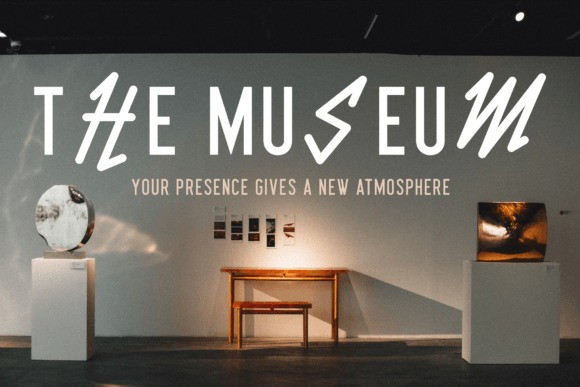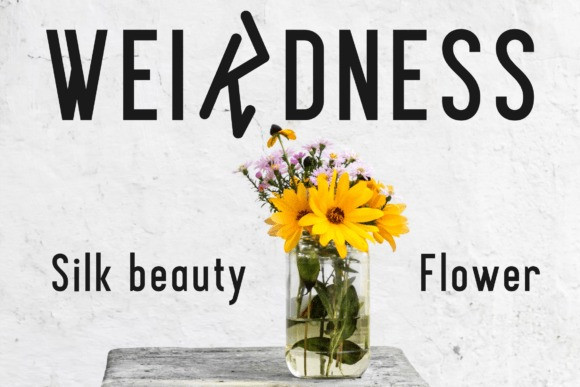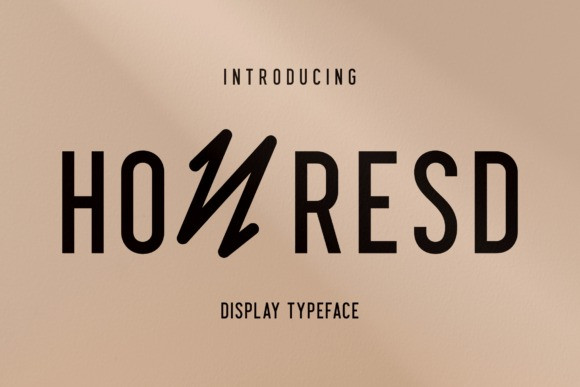
Honresd Font
Honresd Font is a modern display typeface that has its own unique style & modern look. This typeface is perfect for an elegant & luxury logo, book or movie title design, fashion brand, magazine, clothes, lettering, quotes, and so much more.